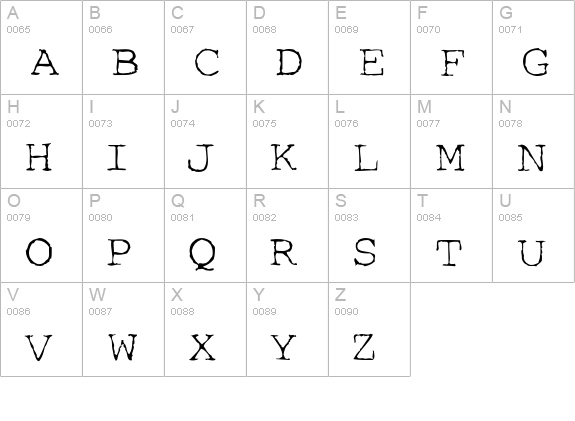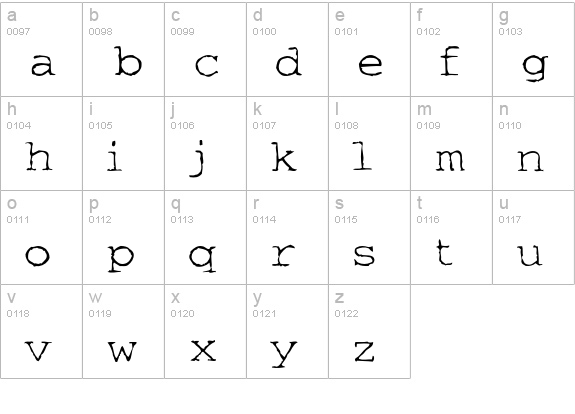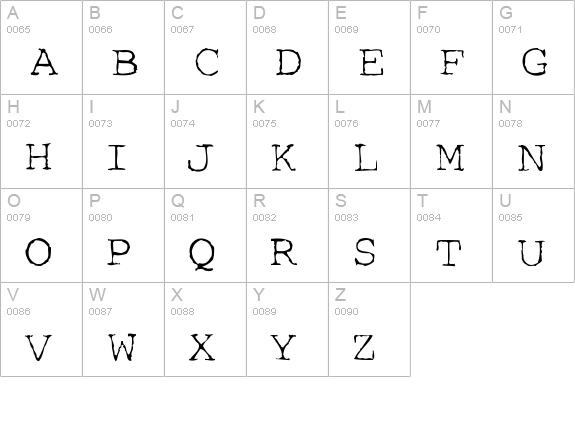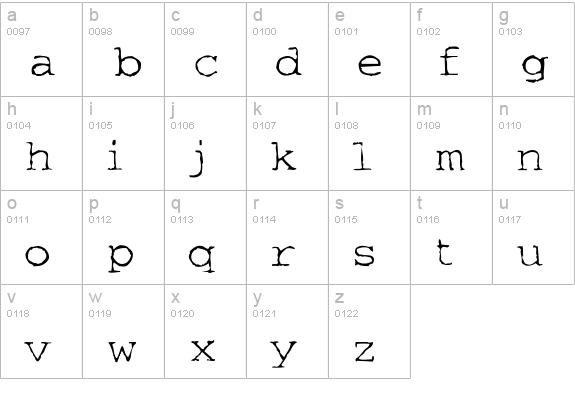
Introducing Blast-O-Rama font, a dynamic and eye-catching typeface that is sure to make your projects pop! This bold and energetic font is perfect for headlines, posters, and any design that needs a touch of excitement. With its unique character shapes and playful style, Blast-O-Rama is sure to grab attention and leave a lasting impression. Best of all, Blast-O-Rama font is available for free download at FontsMarket.com. This means you can easily add this versatile font to your collection without breaking the bank. Whether you're a professional designer or just starting out, Blast-O-Rama font is a must-have addition to your toolkit. Download it today and let your creativity soar with this fantastic and free font!